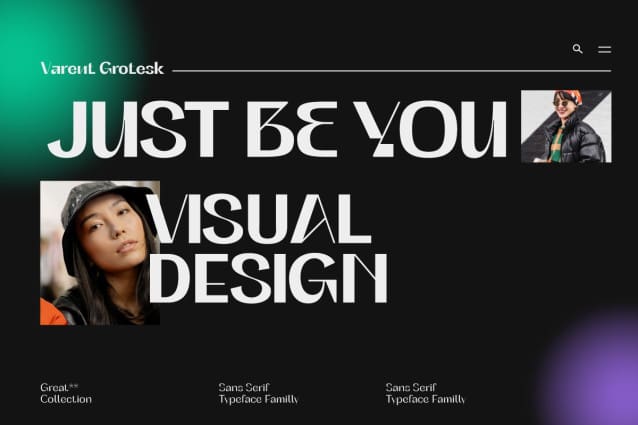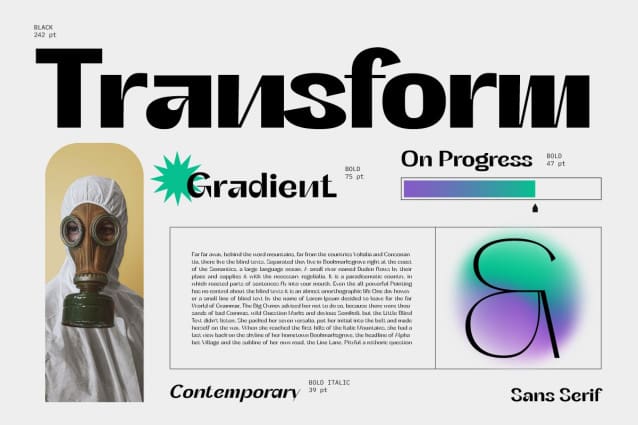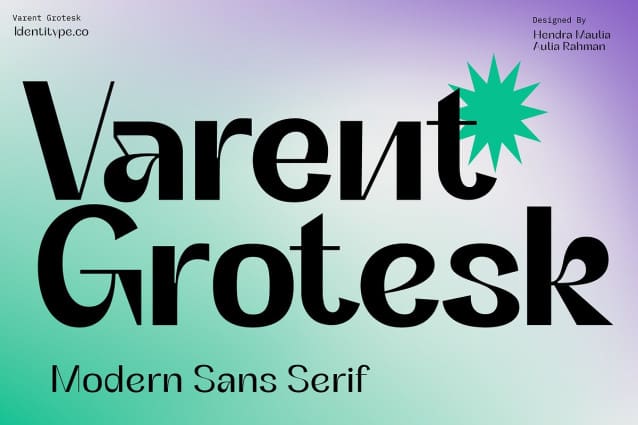
Varent Grotesk Font Family
Varent Grotesk Font Family, a sans serif family designed by Hendra Maulia and Aulia Rahman who was inspired by modern sans serif. The weights of the family itself contain 18 styles plus italic, ranging from Thin to Black. Ideally, it works to capture in a graphic way the universe related to technology, sci-fi, industry, and similar topics. It is a mixed family because of the construction of certain letters (as in “a”, “e”, “h”, “k”, “A”, “B”, and more). Another important line in the creative concept of this typeface is the function of its ink traps, which, in addition to fulfilling their primary function, serve to gain gestuality in its use.
This font is capable of covering complex design needs by enabling association with specific themes, which makes it highly competitive in its graphic line.